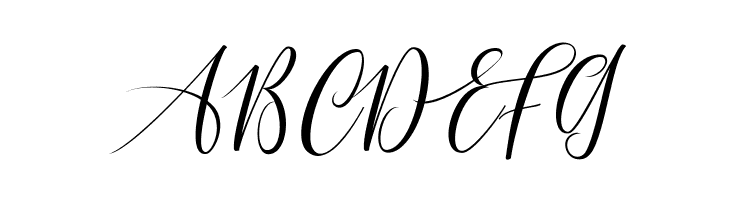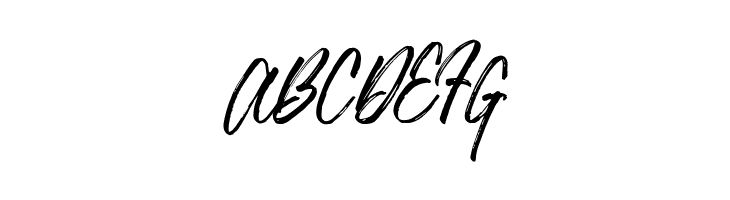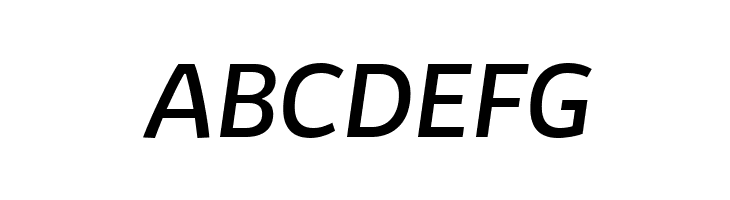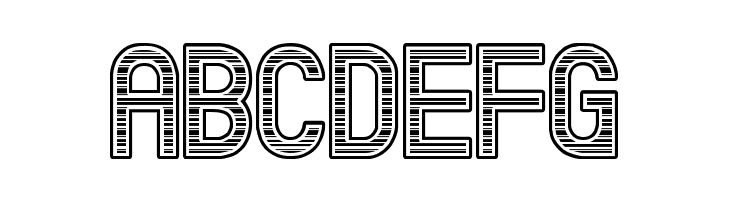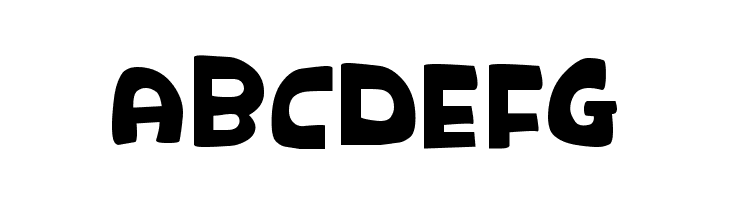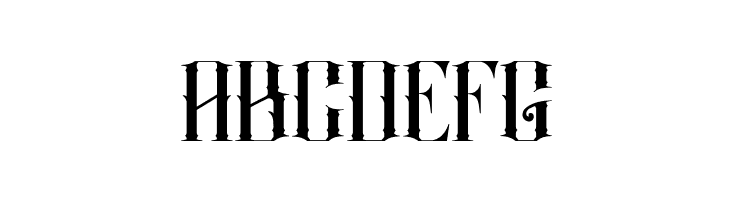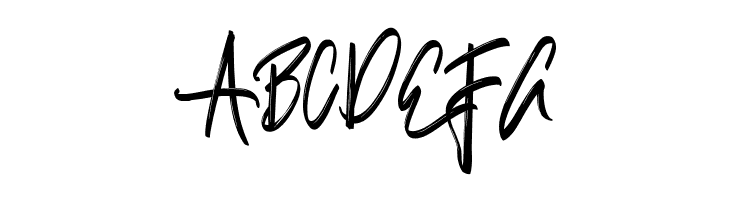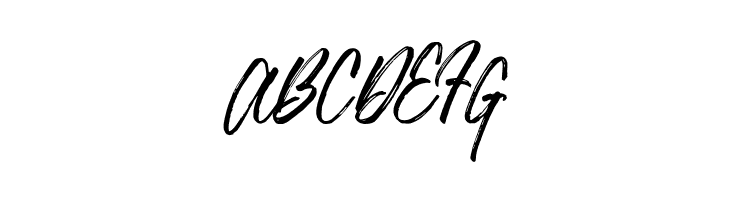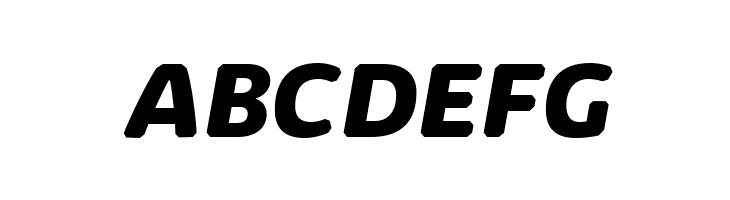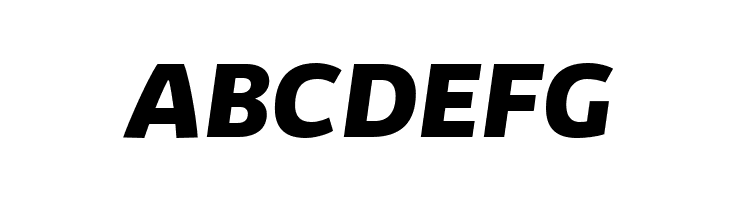
( Debut Studio - Ari Fadli - creativemarket.com/debutstudio )
A bold, handwritten font with a dynamic and energetic style.
A dynamic and expressive handwritten font with fluid, cursive strokes.
( Runsell Studio - creativemarket.com/RunsellStudio )
A bold, expressive handwritten font with fluid, cursive strokes.
An elegant, flowing script font with modern, cursive letterforms.
( Fonts by Southype )
A bold, decorative font with a striped pattern and geometric structure.
( Fonts by K26 Fonts )
A playful, bold font with rounded, cartoon-like characters.
( Zetafonts - www.zetafonts.com )
A modern, clean sans-serif font with uniform stroke width and excellent readability.
( Zetafonts - www.zetafonts.com )
A bold, modern typeface with clean lines and excellent readability.
( Zetafonts - www.zetafonts.com )
A modern sans-serif font with geometric shapes and balanced proportions.
( Zetafonts - www.zetafonts.com )
A bold, modern typeface with strong, uniform strokes and a slightly condensed width.
( Zetafonts - www.zetafonts.com )
A bold, italicized typeface with thick strokes and a dynamic slant.
( Zetafonts - www.zetafonts.com )
A clean, modern, and minimalist extra light typeface with geometric influences.
( Zetafonts - www.zetafonts.com )
A sleek, modern italic typeface with a light stroke and elegant design.
( Zetafonts - www.zetafonts.com )
A bold, modern font with thick, uniform strokes and a strong visual presence.
( Zetafonts - www.zetafonts.com )
A bold, italic font with a dynamic and modern style.
( Zetafonts - www.zetafonts.com )
A modern, italicized sans-serif font with a sleek and professional appearance.
A modern, italic font with clean lines and excellent legibility.
( Zetafonts - www.zetafonts.com )
A clean, modern sans-serif font with a uniform stroke width and geometric influence.
( Zetafonts - www.zetafonts.com )
A modern, light, italic sans-serif font with medium contrast and normal spacing.
( Zetafonts - www.zetafonts.com )
A bold, rounded sans-serif font with smooth curves and uniform strokes.
( Zetafonts - www.zetafonts.com )
A bold, italicized font with smooth, rounded edges and a modern feel.
( Zetafonts - www.zetafonts.com )
A modern sans-serif font with smooth curves and uniform stroke width.
( Zetafonts - www.zetafonts.com )
A modern, italicized font with smooth curves and consistent strokes, offering a dynamic and professional look.
( Zetafonts - www.zetafonts.com )
A bold, rounded font with smooth curves and consistent weight.
( Zetafonts - www.zetafonts.com )
A bold, italic font with rounded edges and a dynamic style.
( Zetafonts - www.zetafonts.com )
A clean, modern sans-serif font with uniform strokes and balanced spacing.
( Zetafonts - www.zetafonts.com )
A sleek, modern italic font with a clean and minimalistic design.
( Zetafonts - www.zetafonts.com )
A bold, rounded font with a playful and robust style.
( Zetafonts - www.zetafonts.com )
A bold, heavy italic font with rounded, smooth characters.
( Zetafonts - www.zetafonts.com )
A modern italic font with smooth curves and a sleek design.
( Zetafonts - www.zetafonts.com )
A clean, modern sans-serif font with a light weight and excellent readability.
( Zetafonts - www.zetafonts.com )
A modern, italic sans-serif font with a sleek and dynamic design.
( Zetafonts - www.zetafonts.com )
A modern, rounded sans-serif font with a clean and approachable style.